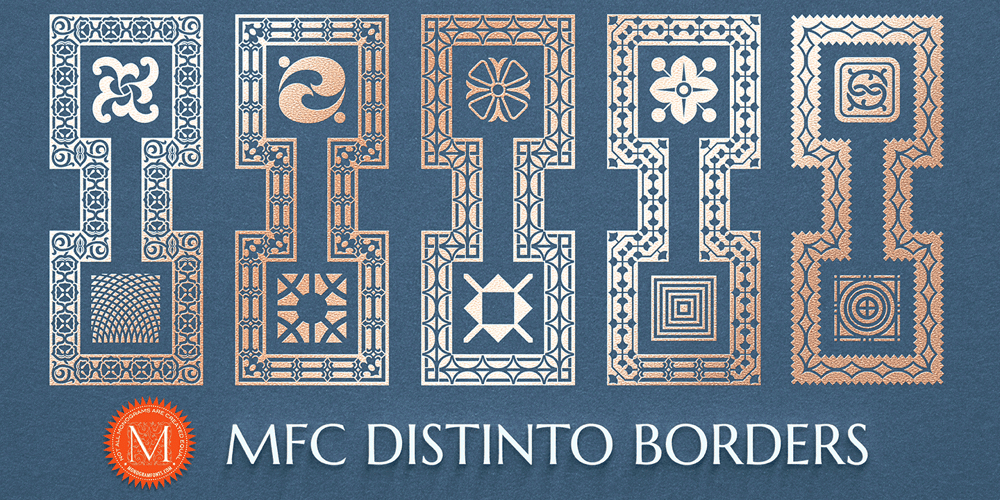
MFC Distinto Borders
MFC Distinto Borders font
MFC Distinto Borders Font Family was designed by Brian J. Bonislawsky and published by Monogram Fonts Co.. MFC Distinto Borders contains 1 styles and family package options. The inspiration source for Distinto Borders are the Black & White and Running Borders from the 1906 Abridged Keystone Type Foundry Specimen Book. Nine Black & White Borders and Thirteen Running Borders are compiled within this font, all of which can be formatted in various manners to allow maximum versatility. While we’ve adjusted the metrics in this font, your program of choice may override and use their own settings. Make certain that the point size and the leading size are the same so that the borders connect properly. For instance, the font set at 12 points, should also be set to have 12 points of leading. It’s that easy! Download and view the Distinto Borders Guidebook if you would like to learn a little more.